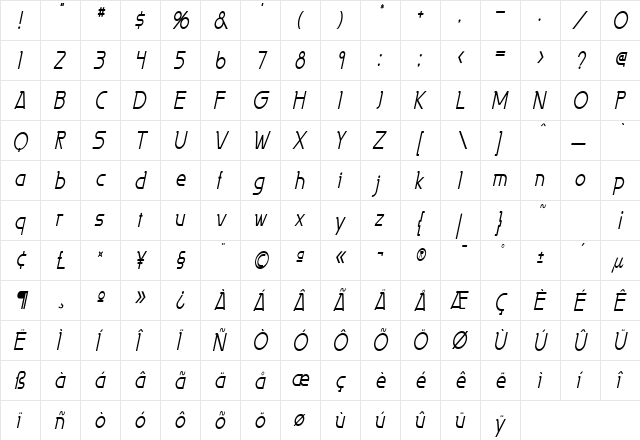
Persia Thin Italic
Design Context for Persia Thin Typeface
Persia Thin is a composed and adaptable typeface that performs quietly and consistently across a wide range of design contexts. The dynamic lean of this cut emphasises speed and emphasis in any layout. Its slender proportions lend an understated elegance to any composition.
Pro Tip: Try Persia Thin for annotation and caption copy alongside an upright companion — the contrast in angle creates a dynamic but ordered typographic system.